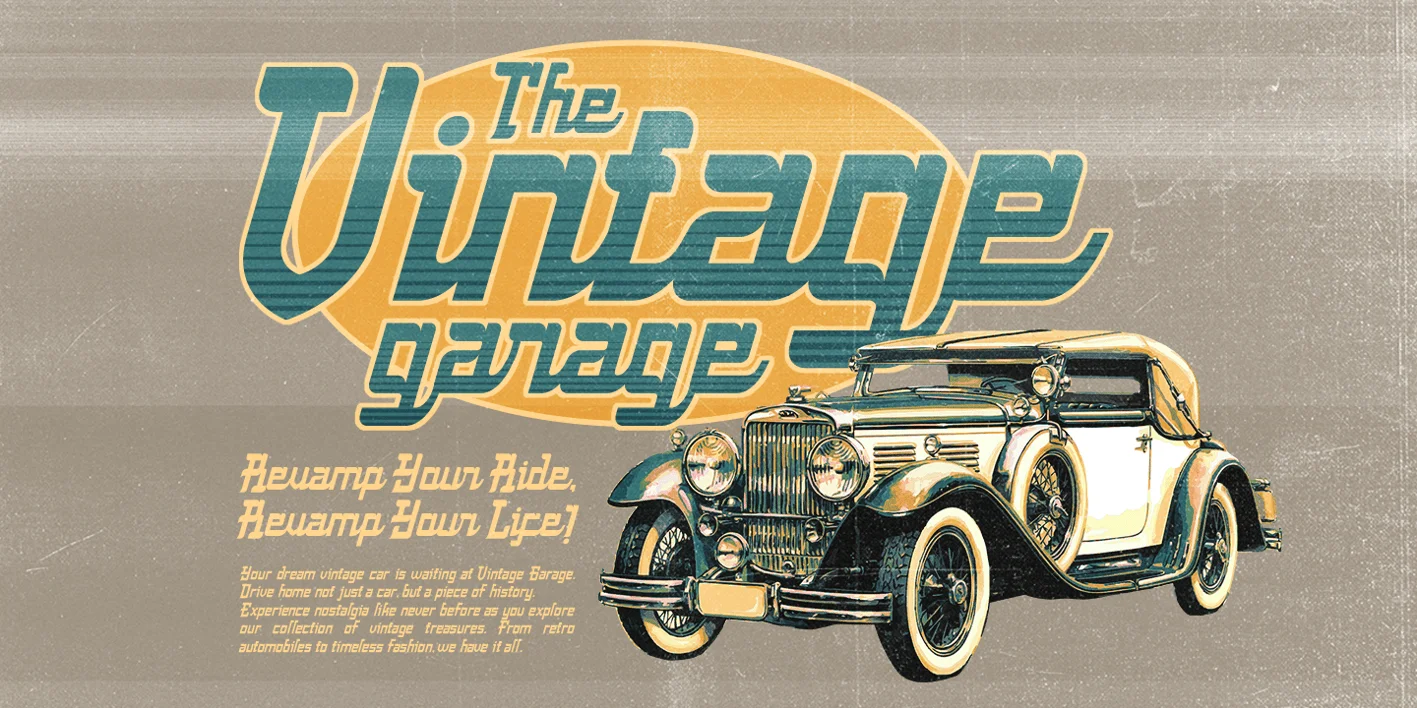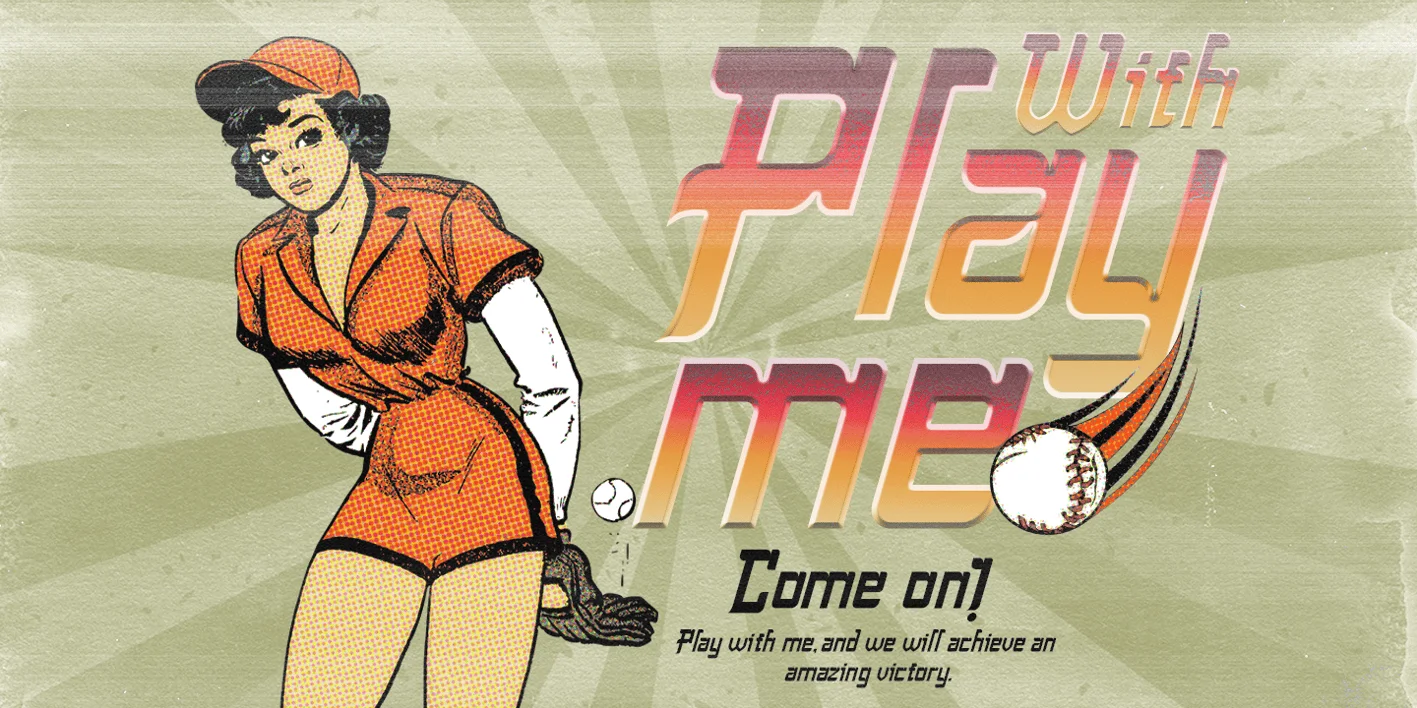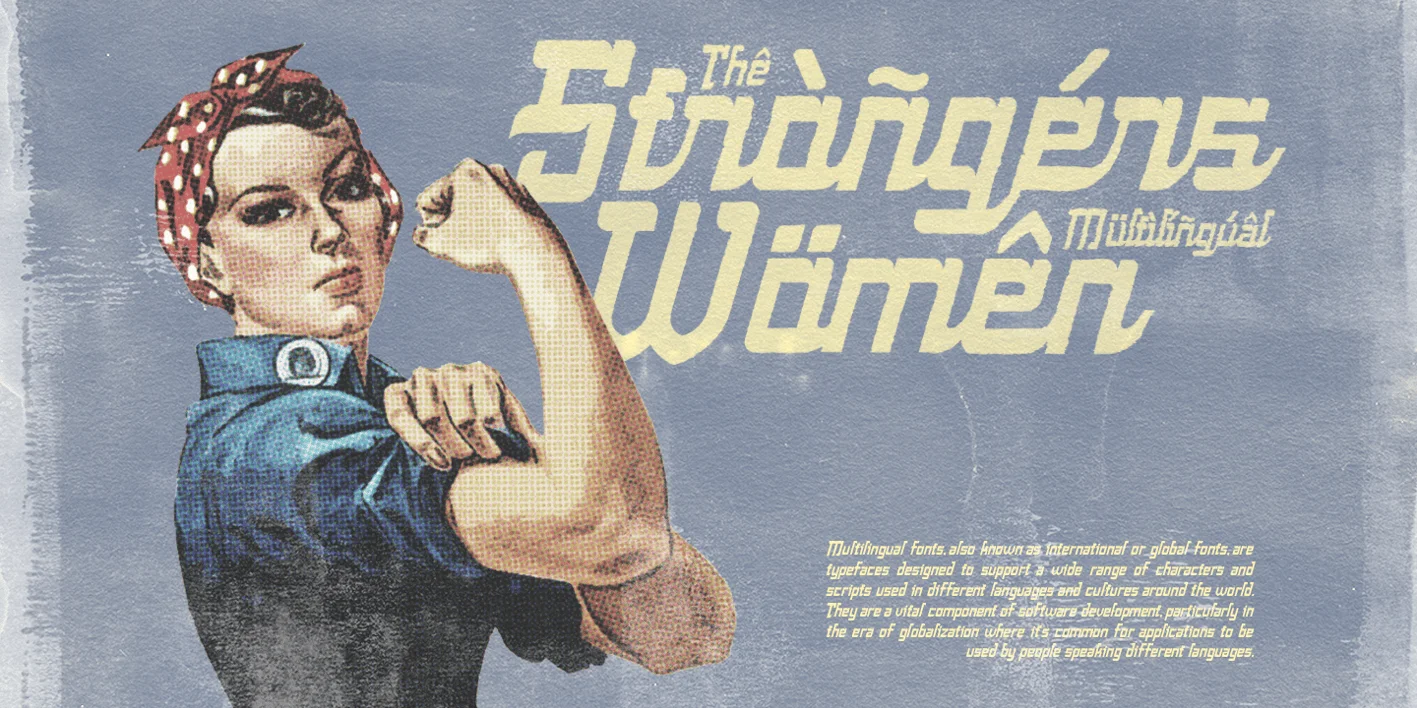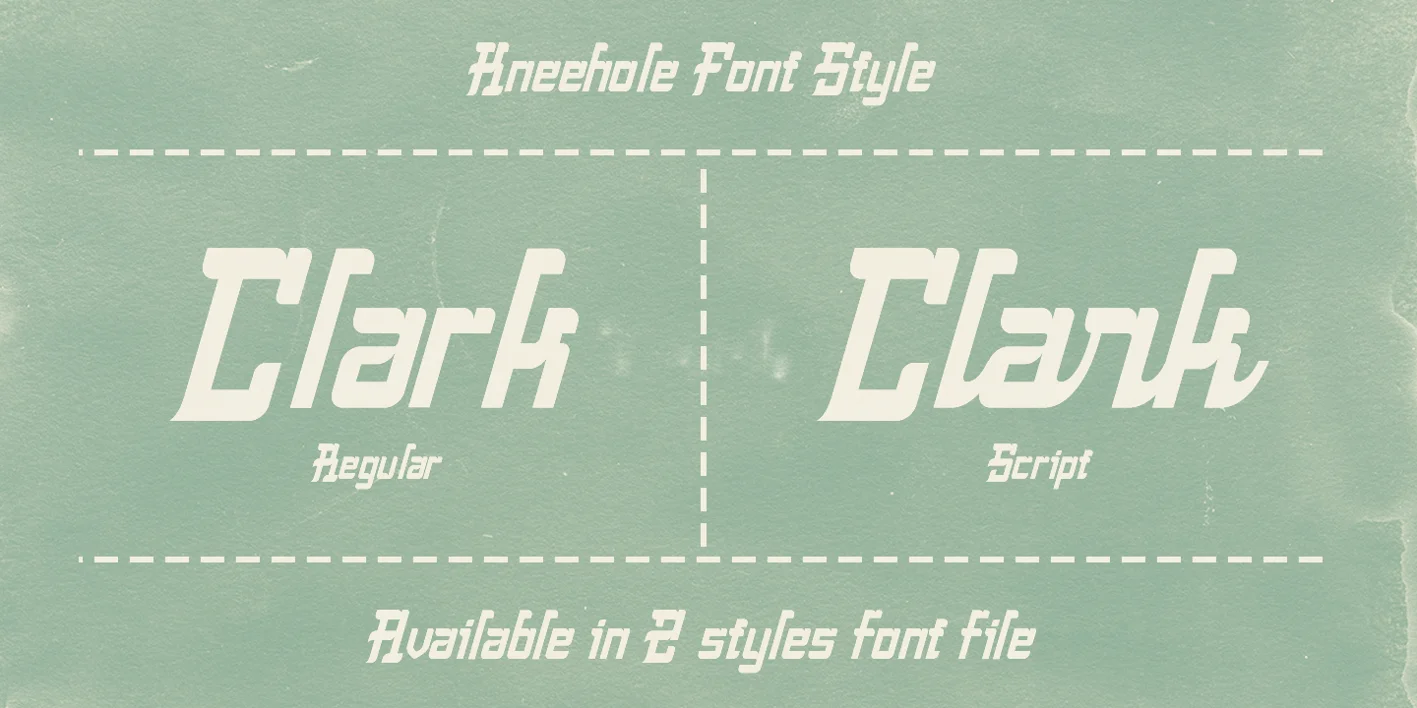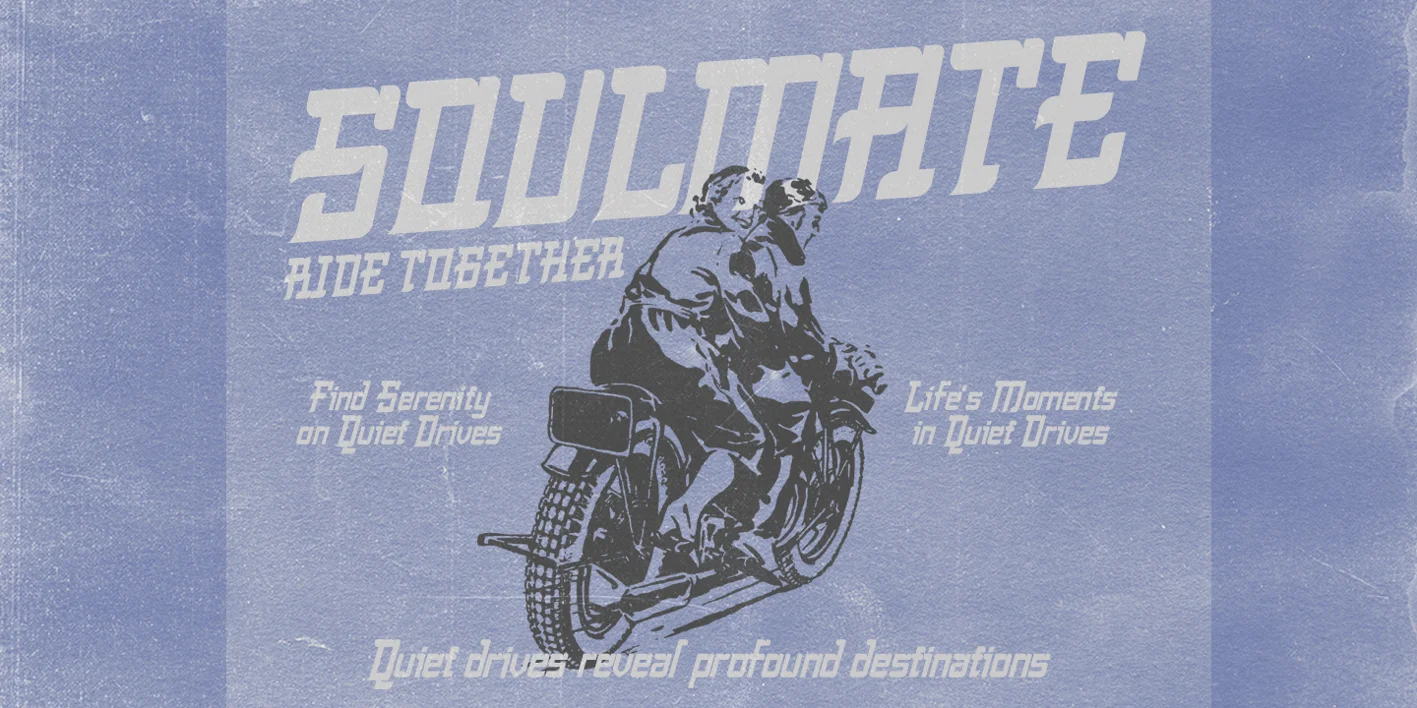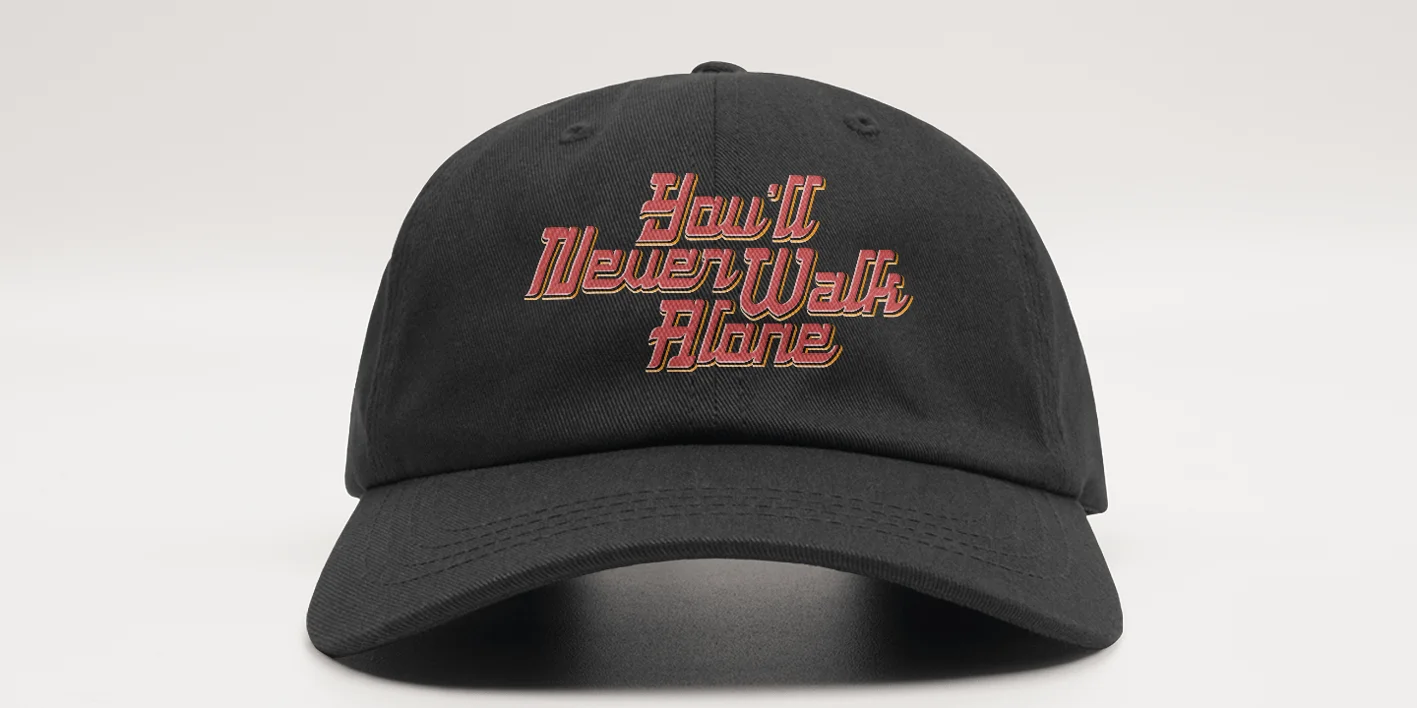
Kneehole Font
Introducing KNEEHOLE! a captivating font that encapsulates the essence of vintage and retro charm, with a distinctive square-shaped letter design. With two styles available for each type - Regular and Script, KNEEHOLE is your ideal choice for crafting logos, signboards, or elegant wordmarks. Features: Kneehole Main File Has 2 Families: Regular and Script Instructions (Access special characters, even in Cricut Design) Unique Letterforms Works on PC & Mac